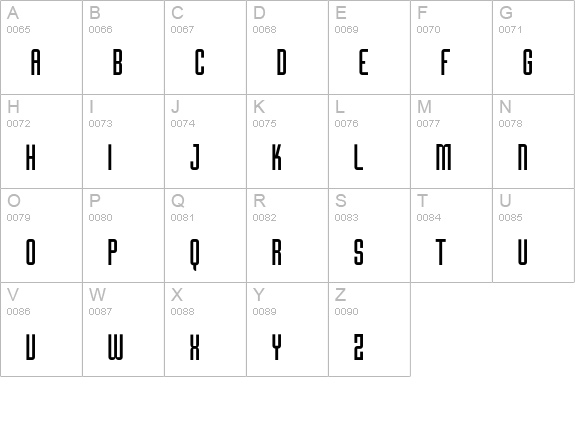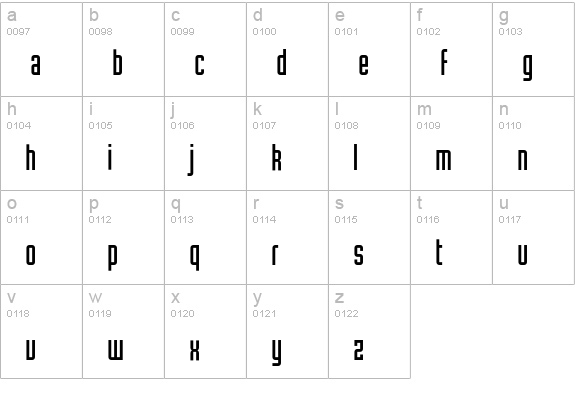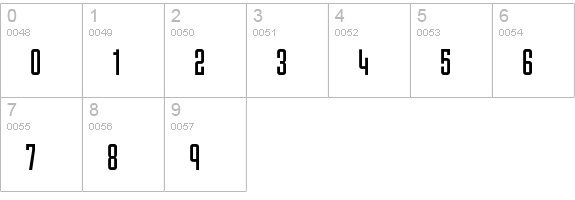
Tube-Regular Font Details
Tube-Regular is the standard, neutral variant in the Tube typeface family \xE2\x80\x94 well suited to general body text, paragraphs, and standard typographic work.
Tube-Regular is a modern and sleek font that exudes a sense of boldness and sophistication. Its clean lines and sharp edges make it perfect for any design project that requires a touch of contemporary elegance. Whether it's for a logo, website, or poster, Tube-Regular will effortlessly capture attention and convey a sense of professionalism. This font's versatility is truly remarkable, as it can be used in both bold headlines and subtle body text. Its legibility remains intact even at smaller sizes, ensuring that your message is effectively communicated to your audience. The balanced spacing and well-designed letterforms make Tube-Regular a pleasure to read and work with. What makes Tube-Regular even more appealing is that it is freely available to download at FontsMarket.com. This means you can easily access this stunning font without any cost or restrictions. Whether you're a professional designer or a hobbyist, Tube-Regular provides you with the opportunity to elevate your projects with its sleek and contemporary aesthetic. So why wait? Download Tube-Regular now from FontsMarket.com and unleash your creativity with this exceptional font. Whether you're designing a website, creating a logo, or working on a print project, Tube-Regular will be your go-to font for adding a touch of modern elegance and sophistication.